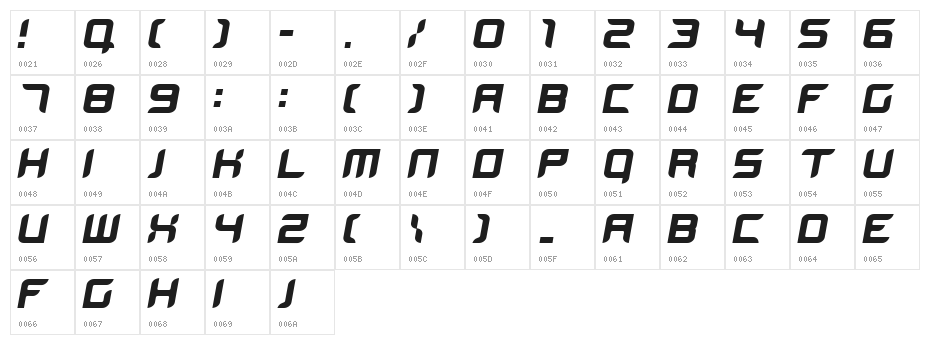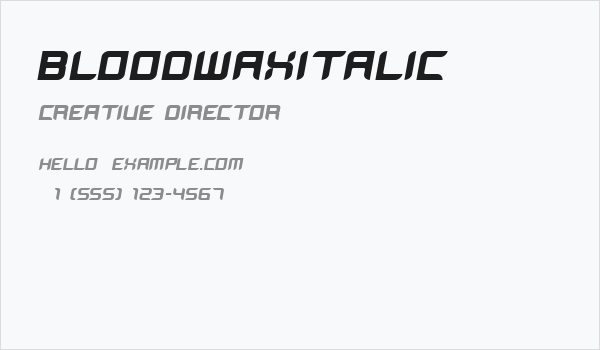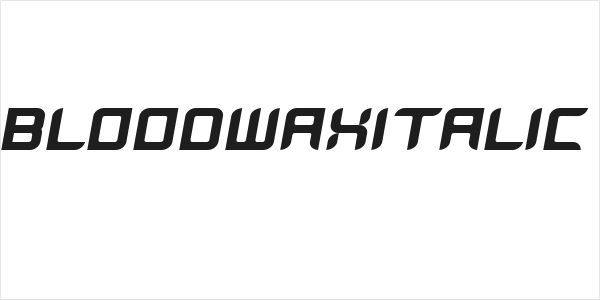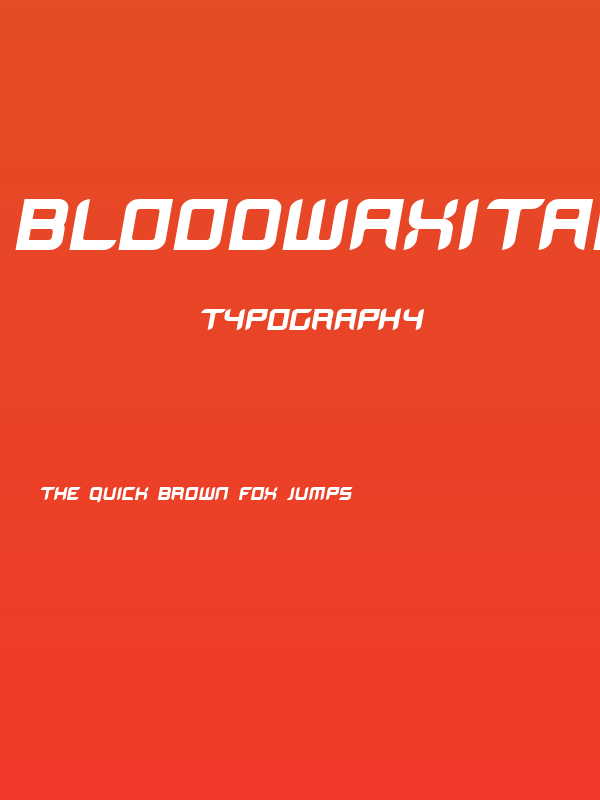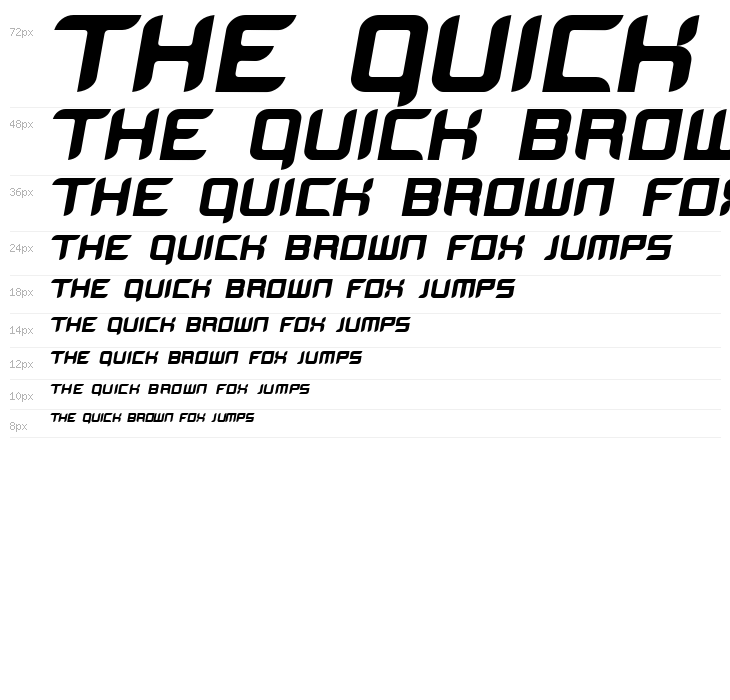
BloodWaxItalic Font
BloodWaxItalic Description
This font features a bold, italicized style with a futuristic and dynamic appearance. The characters are slightly slanted, giving a sense of motion and speed. The strokes are thick and consistent, providing a strong visual impact. The design includes sharp angles and clean lines, contributing to a modern aesthetic. The spacing between characters is tight, enhancing the compact and cohesive look. This font is ideal for projects that require a bold statement or a modern, edgy feel.